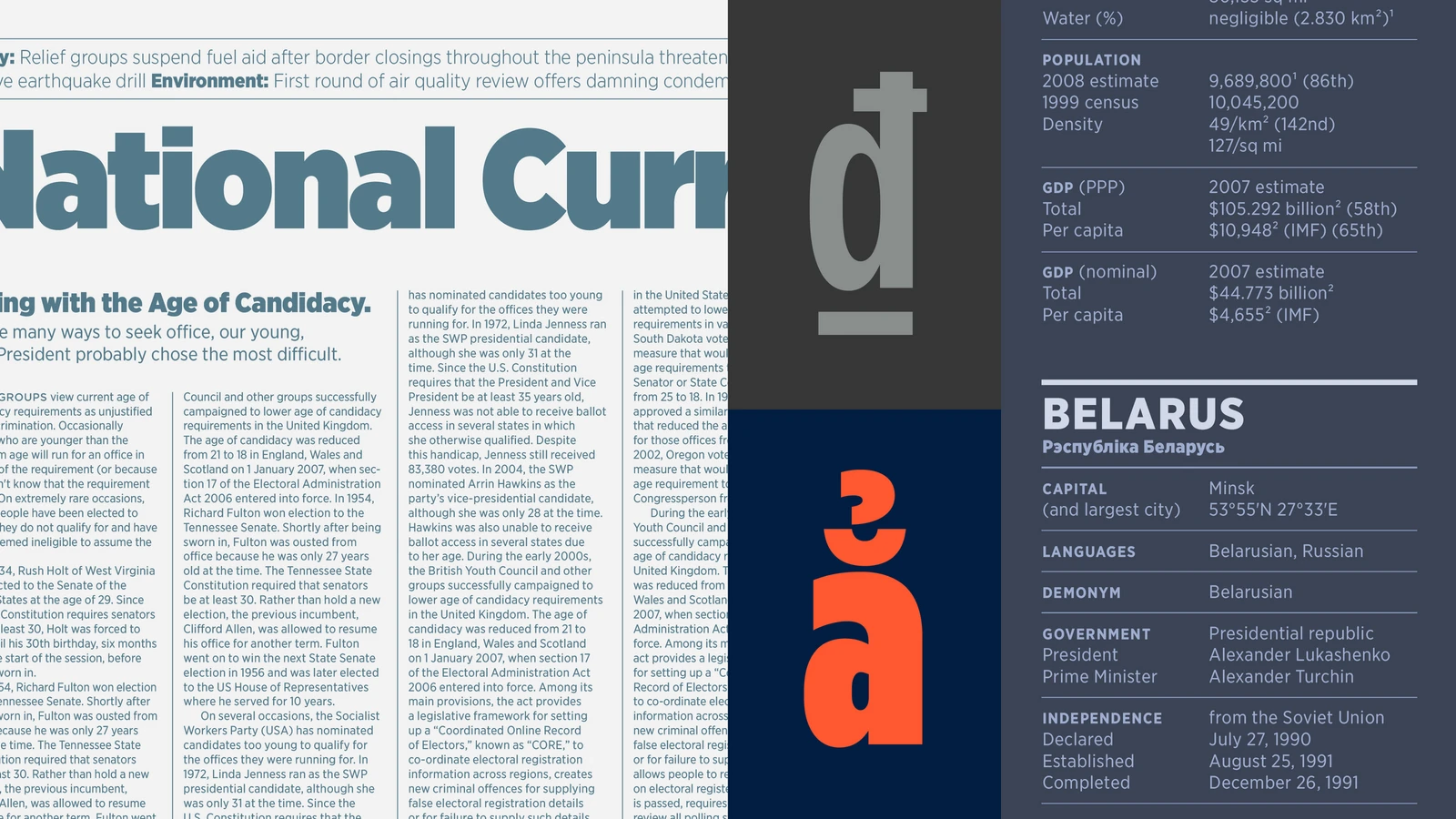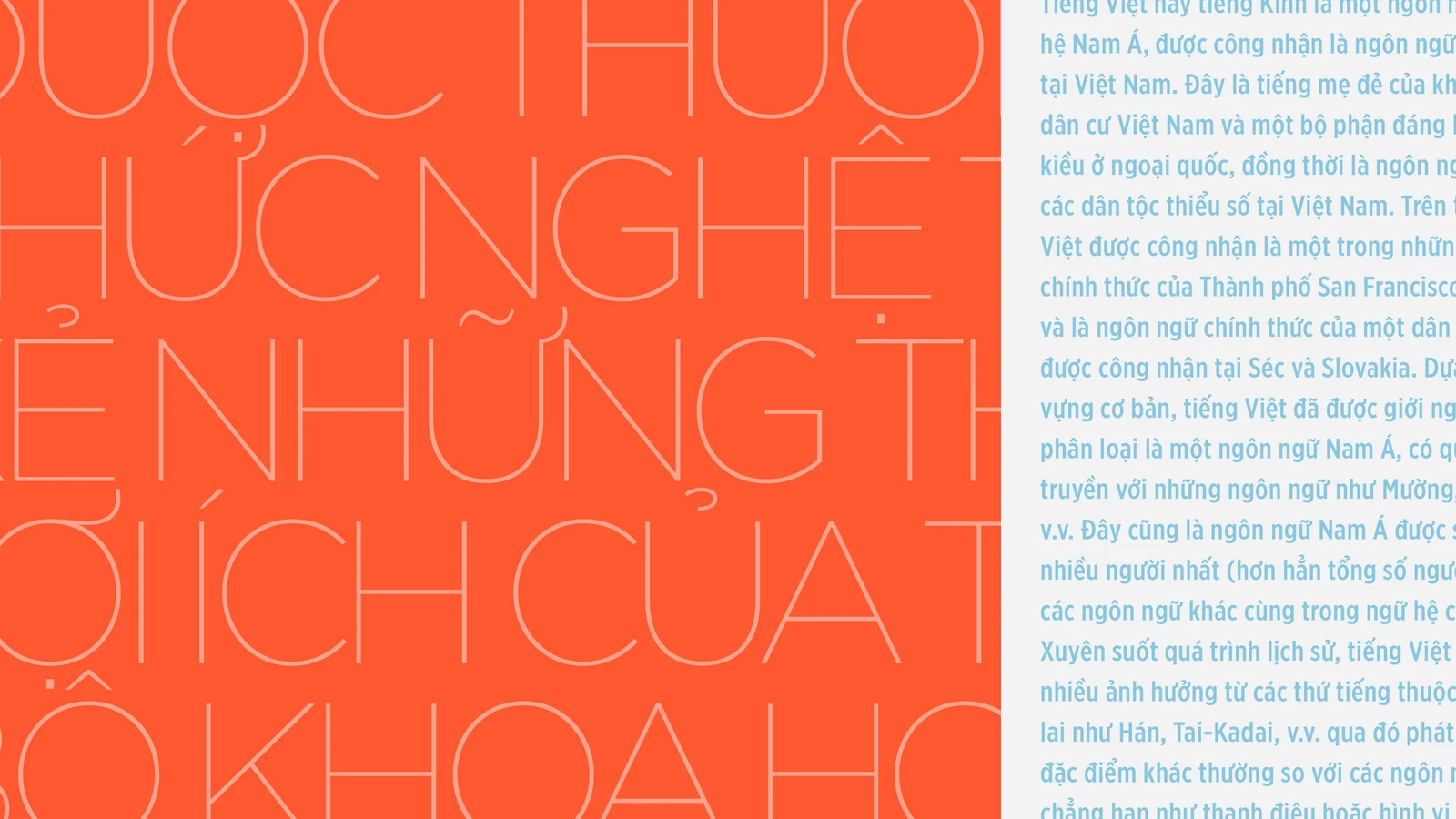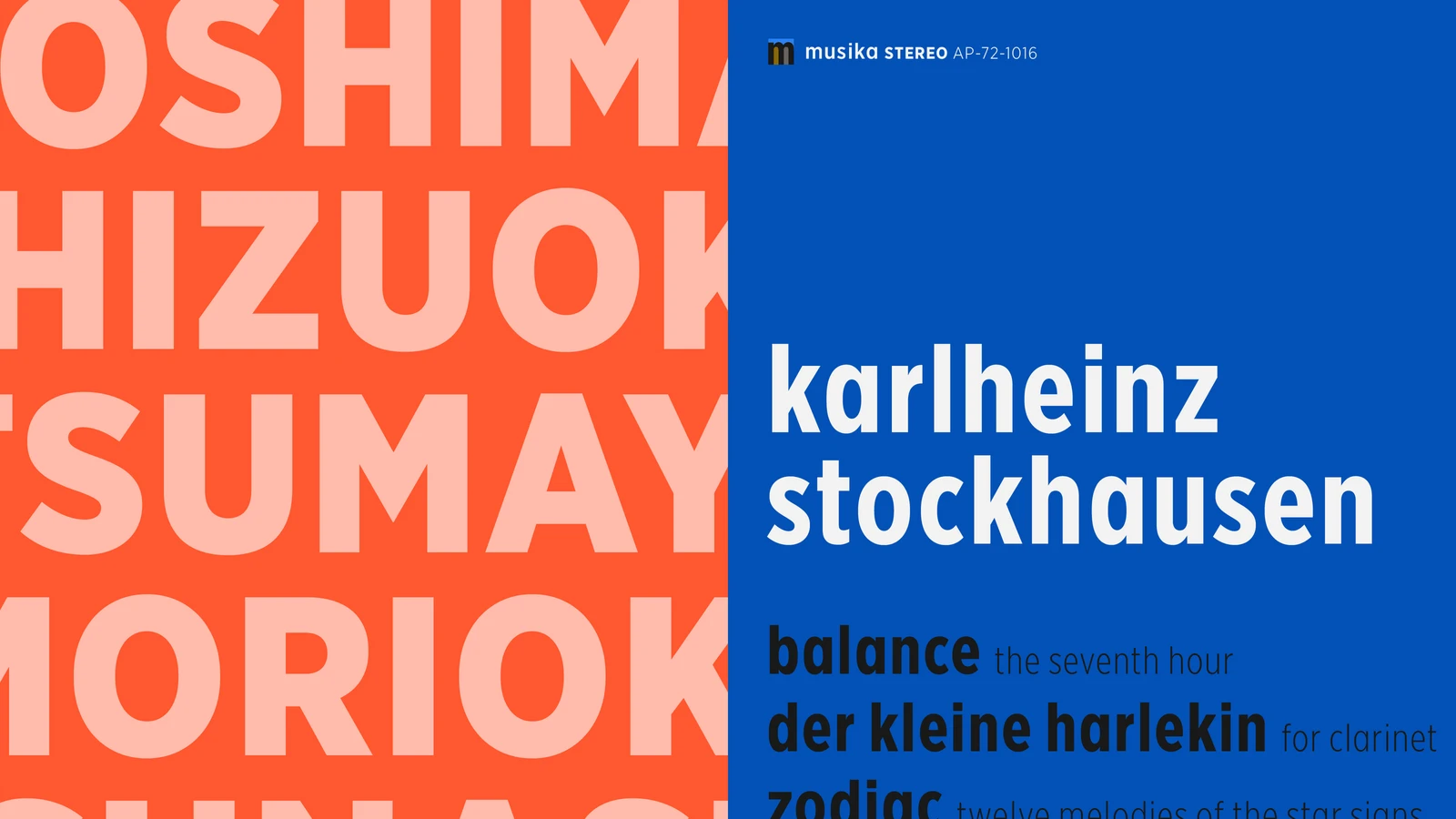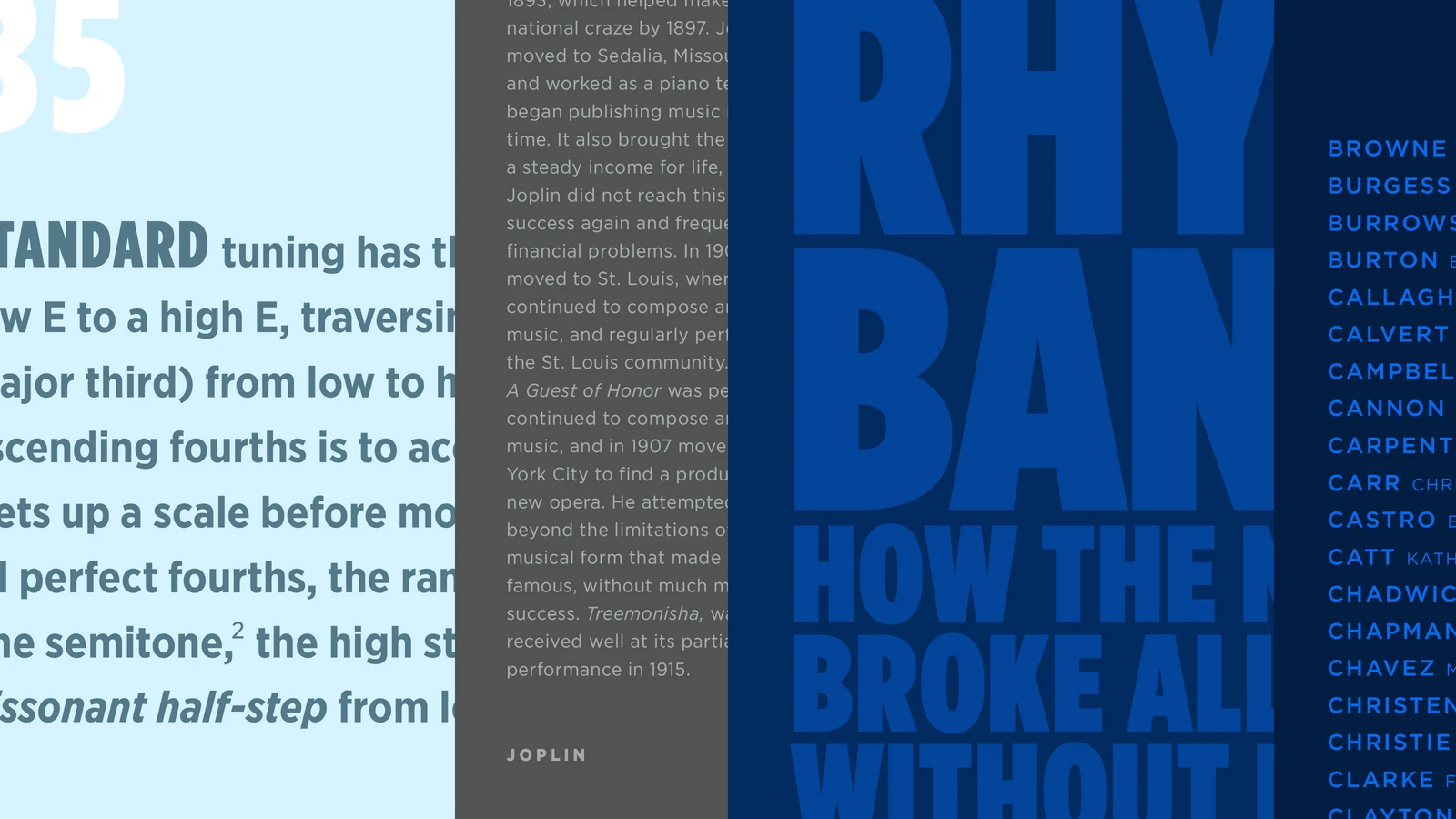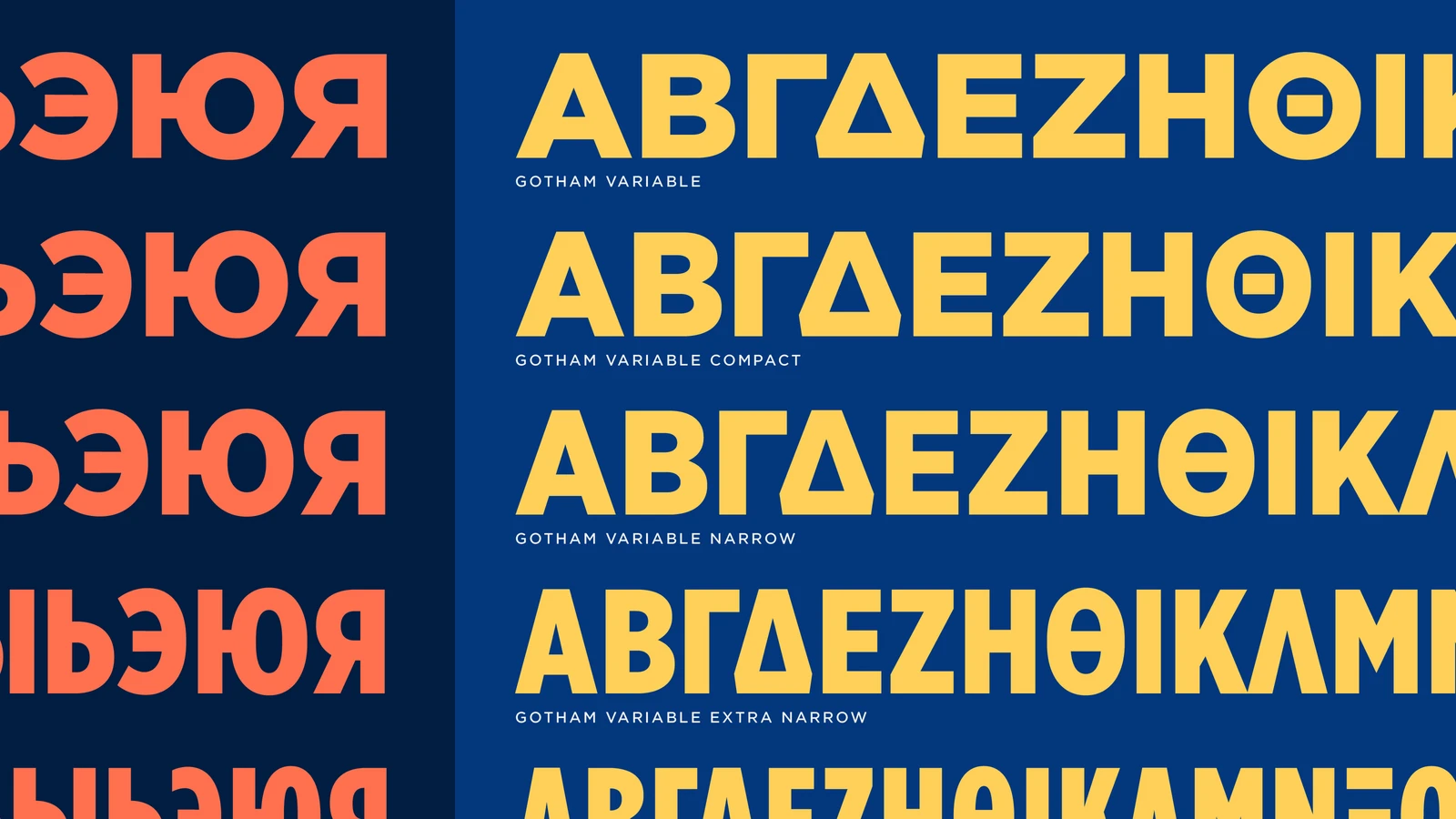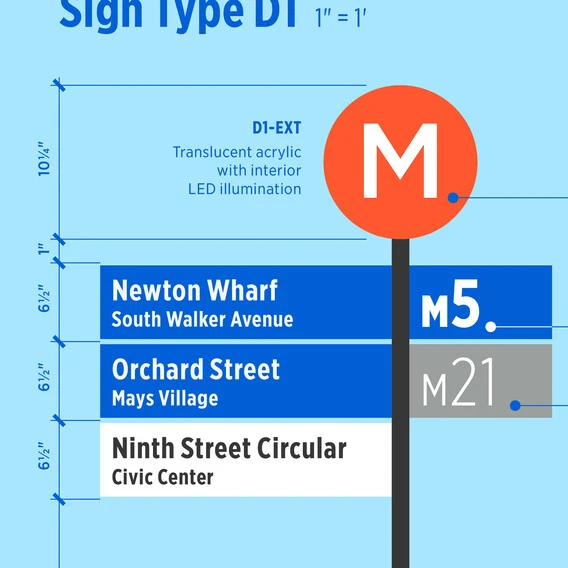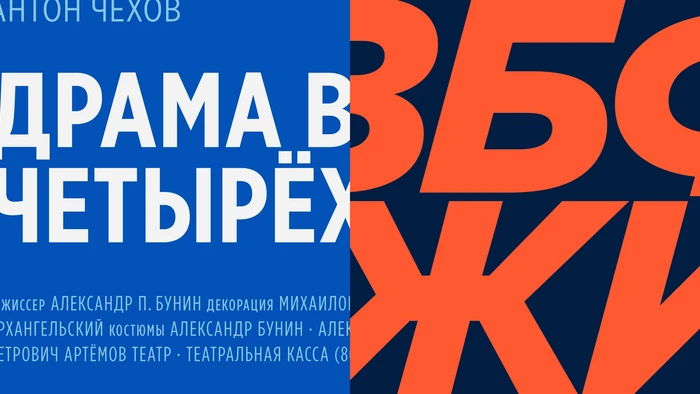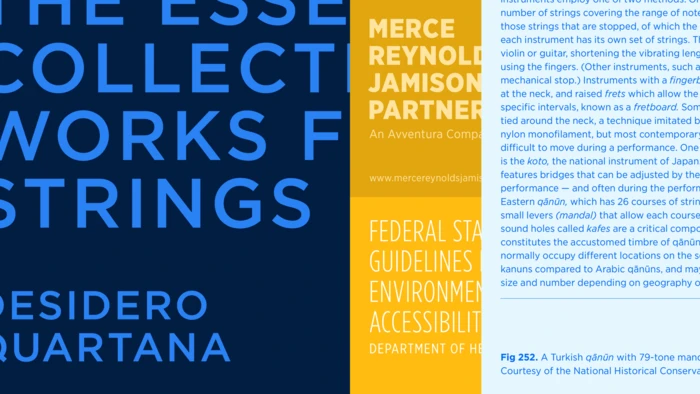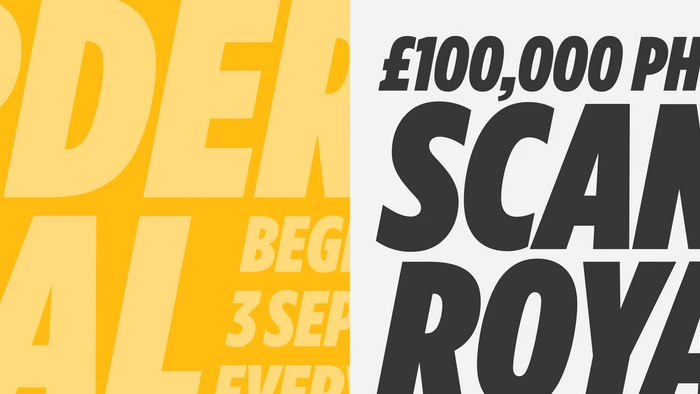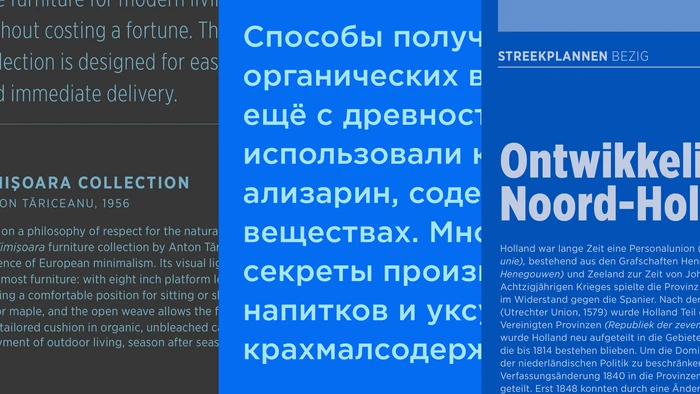
One Gotham, infinite expression.
For its 25th anniversary, a new evolution of Gotham pushes this iconic typeface forward.
Few fonts deserve the title iconic. Gotham is one of them. Drawn from the signage of New York City streets, storefront facades, and geometric architecture, Gotham quickly became a natural choice for plainspoken communication.
Its bold, confident approachability — with open counters and defined edges — express honesty without harshness, and class without pretension. Gotham speaks and is understood. It’s rare, and familiar. First appearing in GQ magazine in 2001, its hardworking, effortless appeal has shaped the typographic landscape the world knows today.
Countless blockbuster titles, political campaigns, corporate identities, and the cornerstone at One World Trade Center are a testament to its influence. Now, a quarter century later, Monotype has pushed Gotham into an evolved state: Gotham Variable.
Gotham that’s built for the way design operates today.
Gotham Variables powers up the Gotham the world knows and trusts. Bridging the gap between design and process, Gotham Variable streamlines workflows while preserving the clarity and confidence that define it. Expanded language support brings the same frank expression to new languages and cultures.
Type that moves with you.
Gotham Variable offers designers streamlined, continuous control across weight, width, and tone. In a single motion, designers have direct control over every typographic moment. No more breaking systems just to find the perfect weight. A range of intermediate widths and weights, including a new compact width, offers designers efficiency without sacrificing look and feel.
Lighter, faster, and ready to scale.
The full Gotham library, compressed into a single file, simplifies installation and improves loading time. Removing the complexity behind the scenes helps teams keep the focus where it belongs: on the work.
Built to cross borders.
With extended language support that now includes Vietnamese, Gotham Variable expands into the final major frontier of Latin-based typography. Additional enhanced support is added for Cyrillic and Bulgarian. Gotham Variable supports complex diacritics, stacked accents, and tone marks with precision and care, retaining the meaning across these languages and cultures.